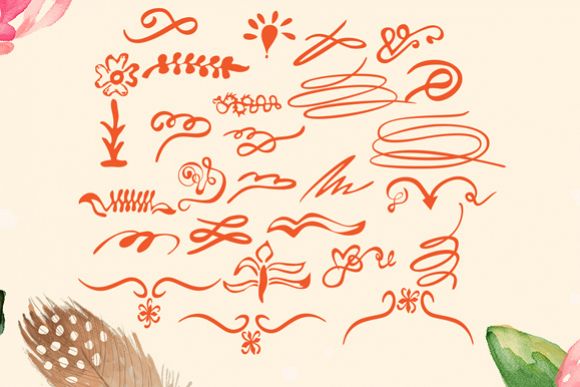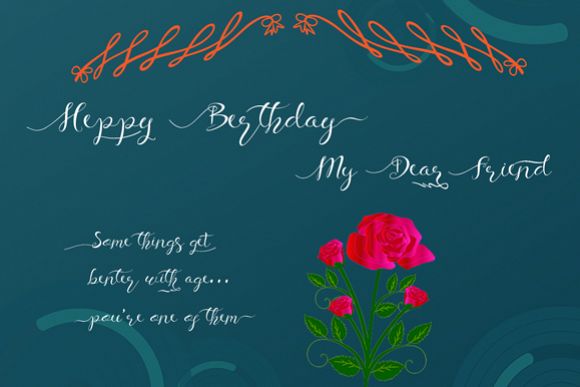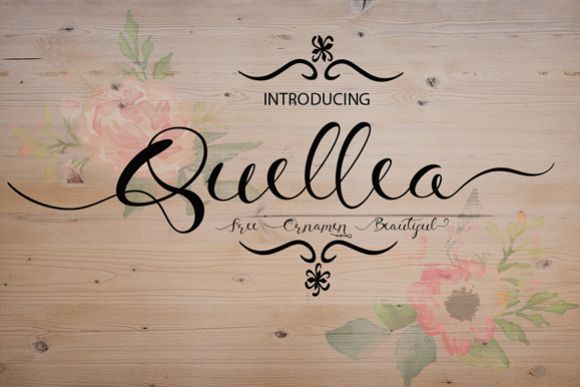
Quellea Script Font
Quellea – a new fresh & modern script with a handmade calligraphy style, decorative characters and a dancing baseline! So beautiful on invitation like greeting cards, branding materials, business cards, quotes, posters, and more!